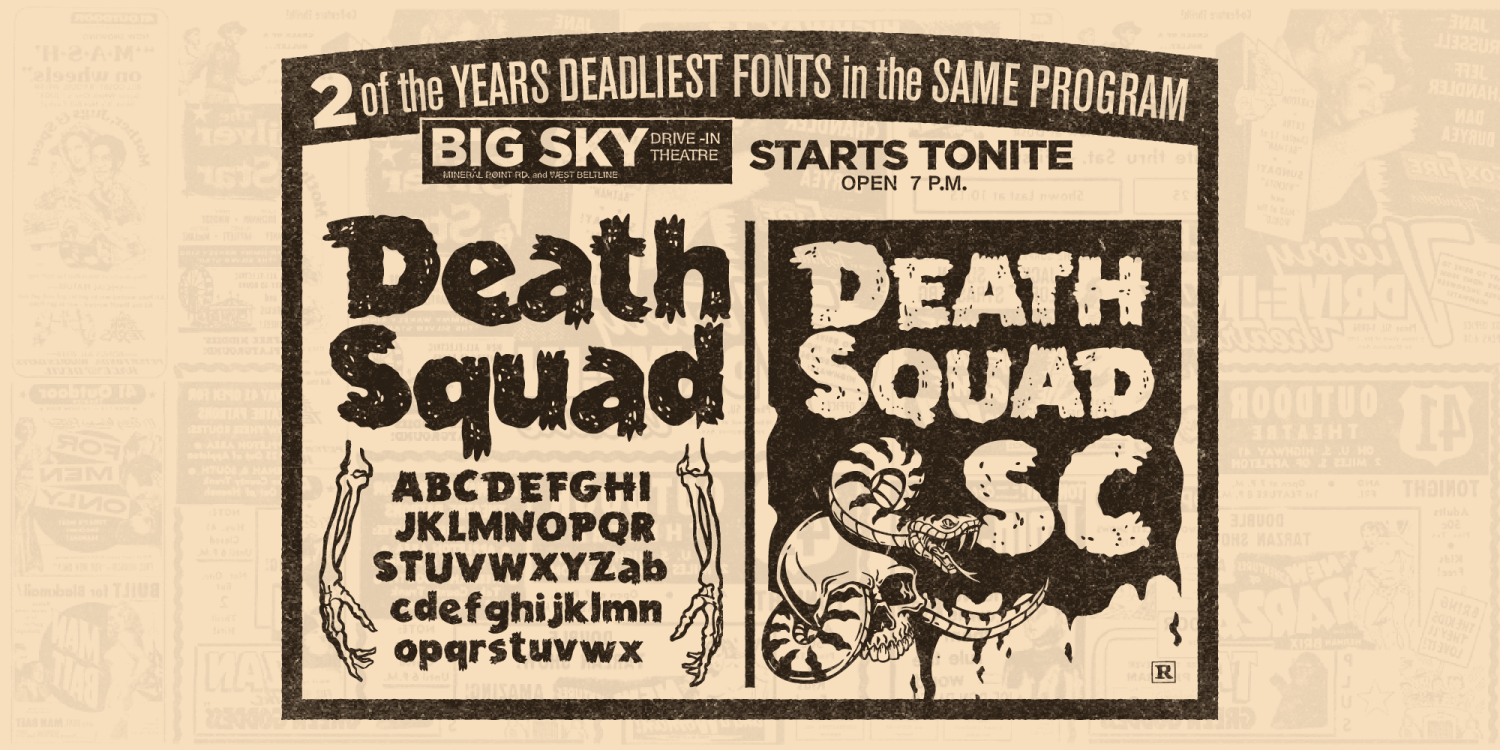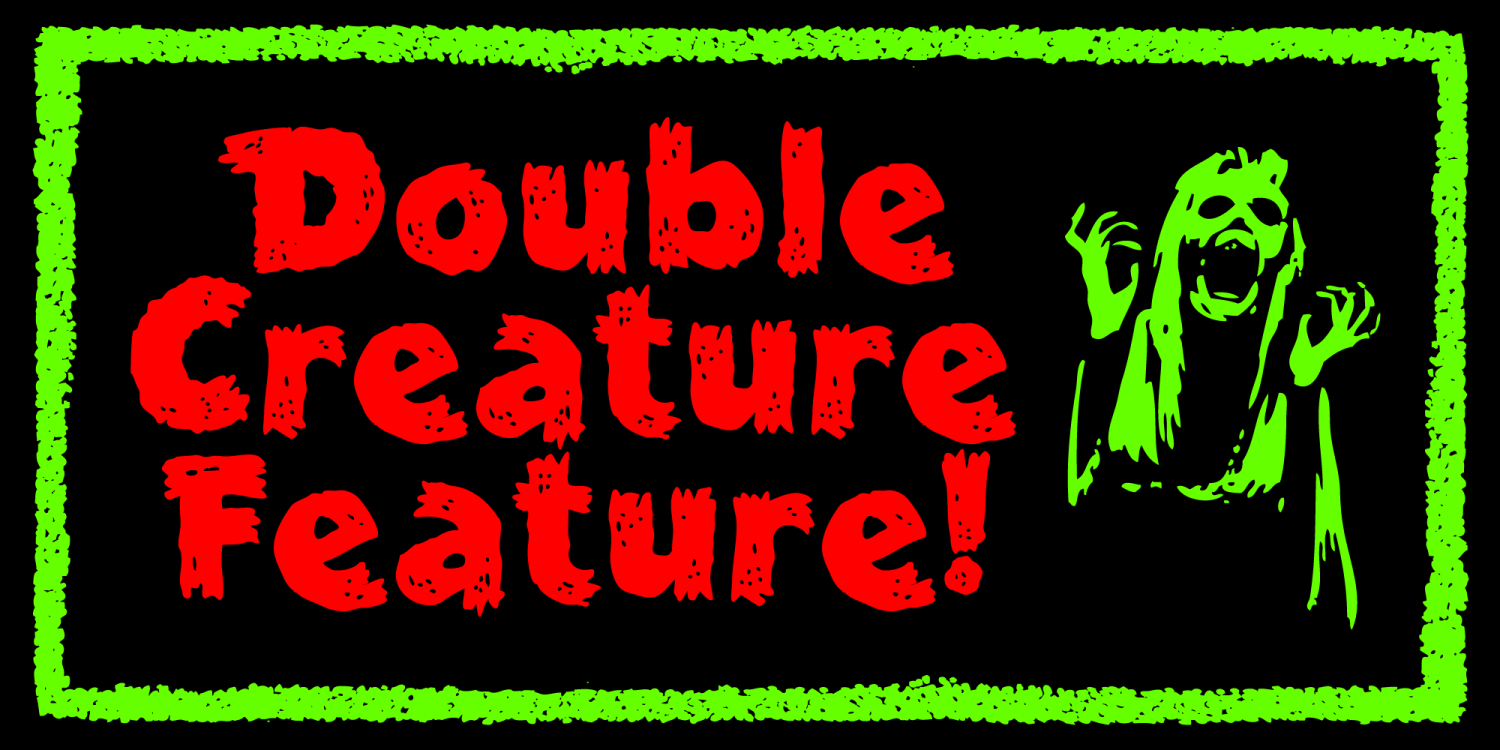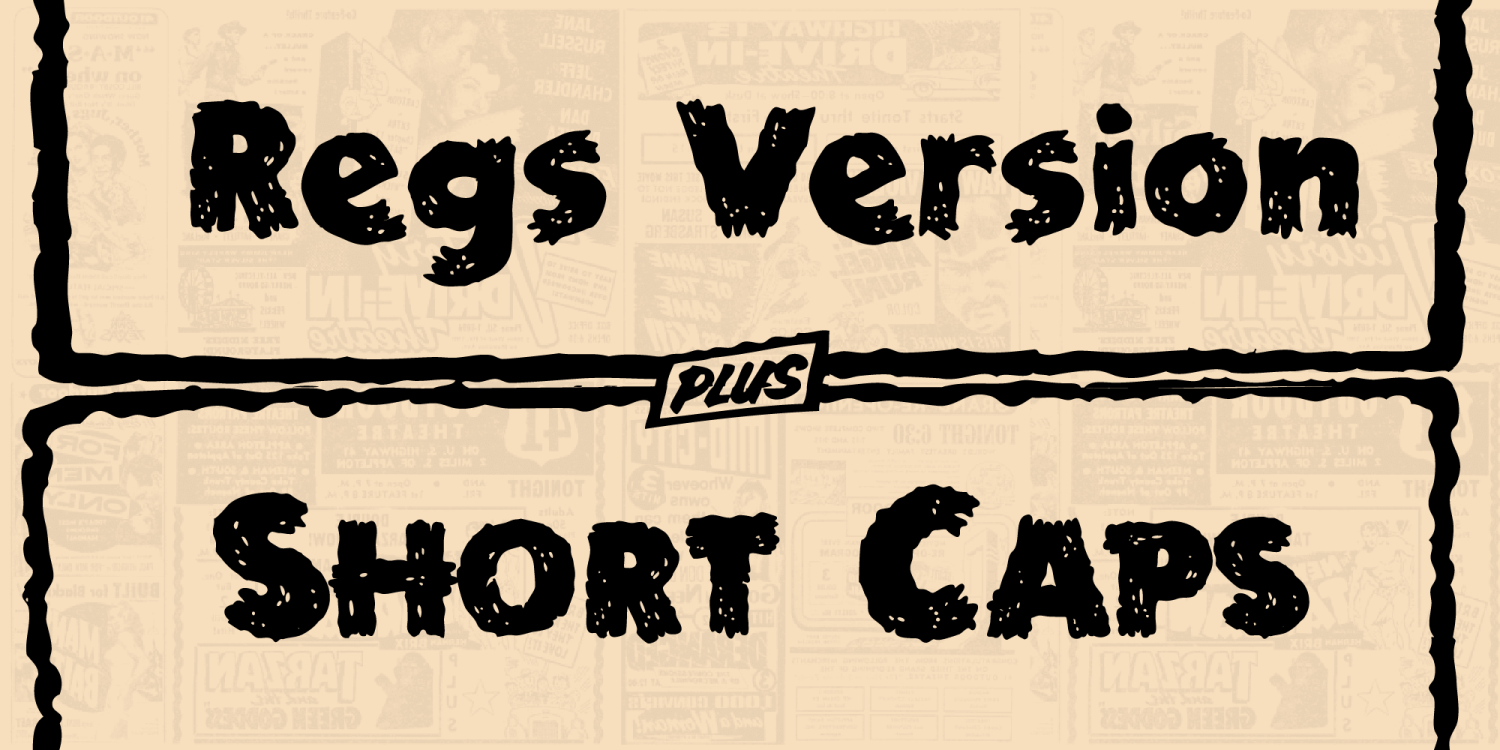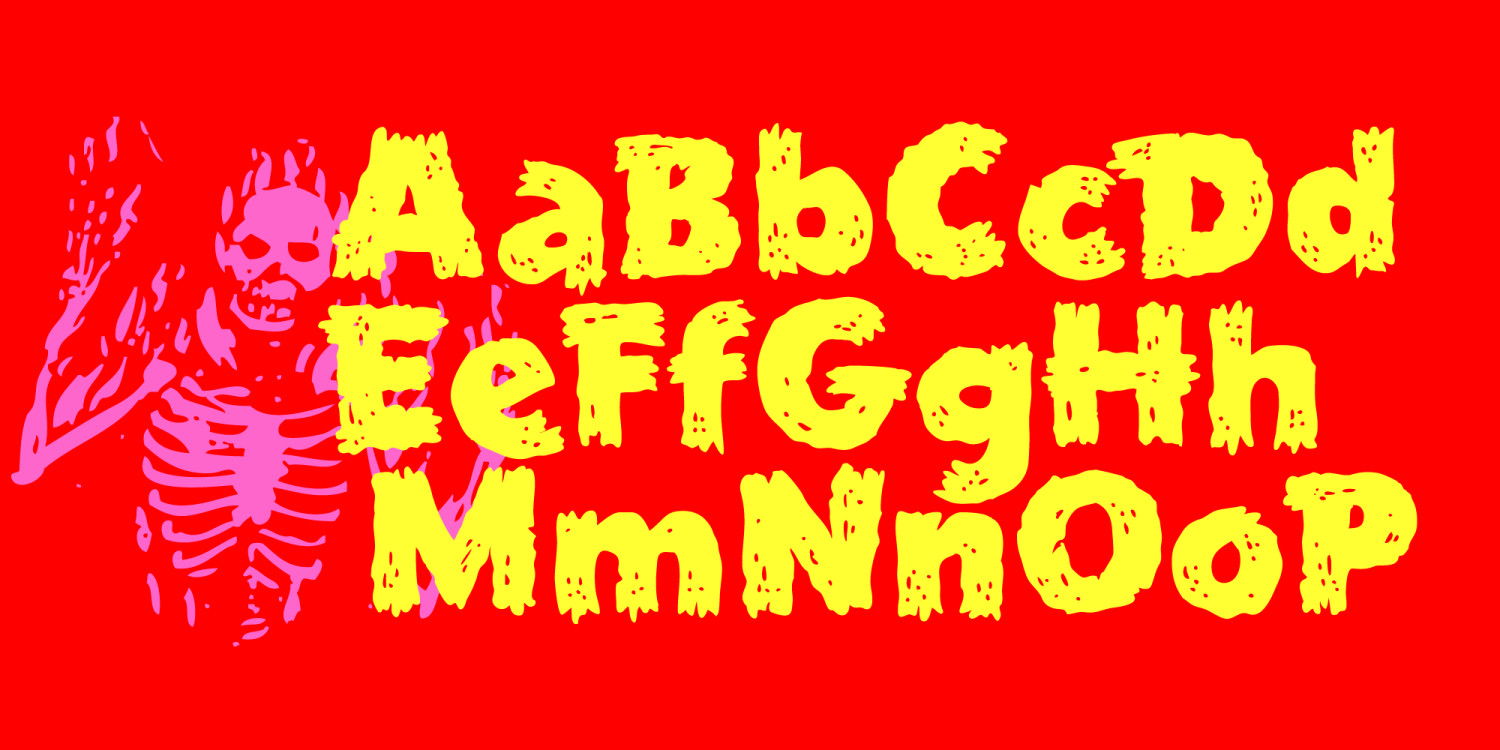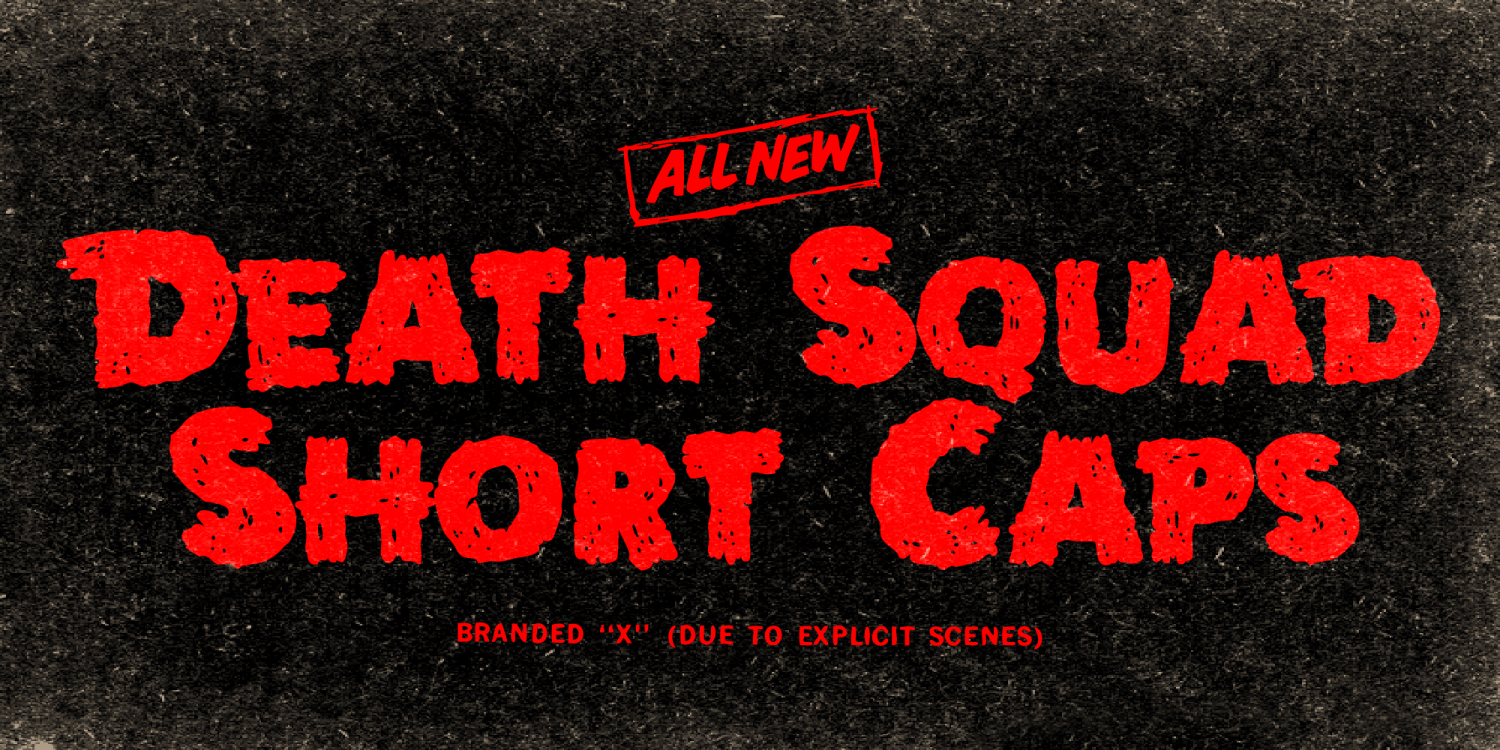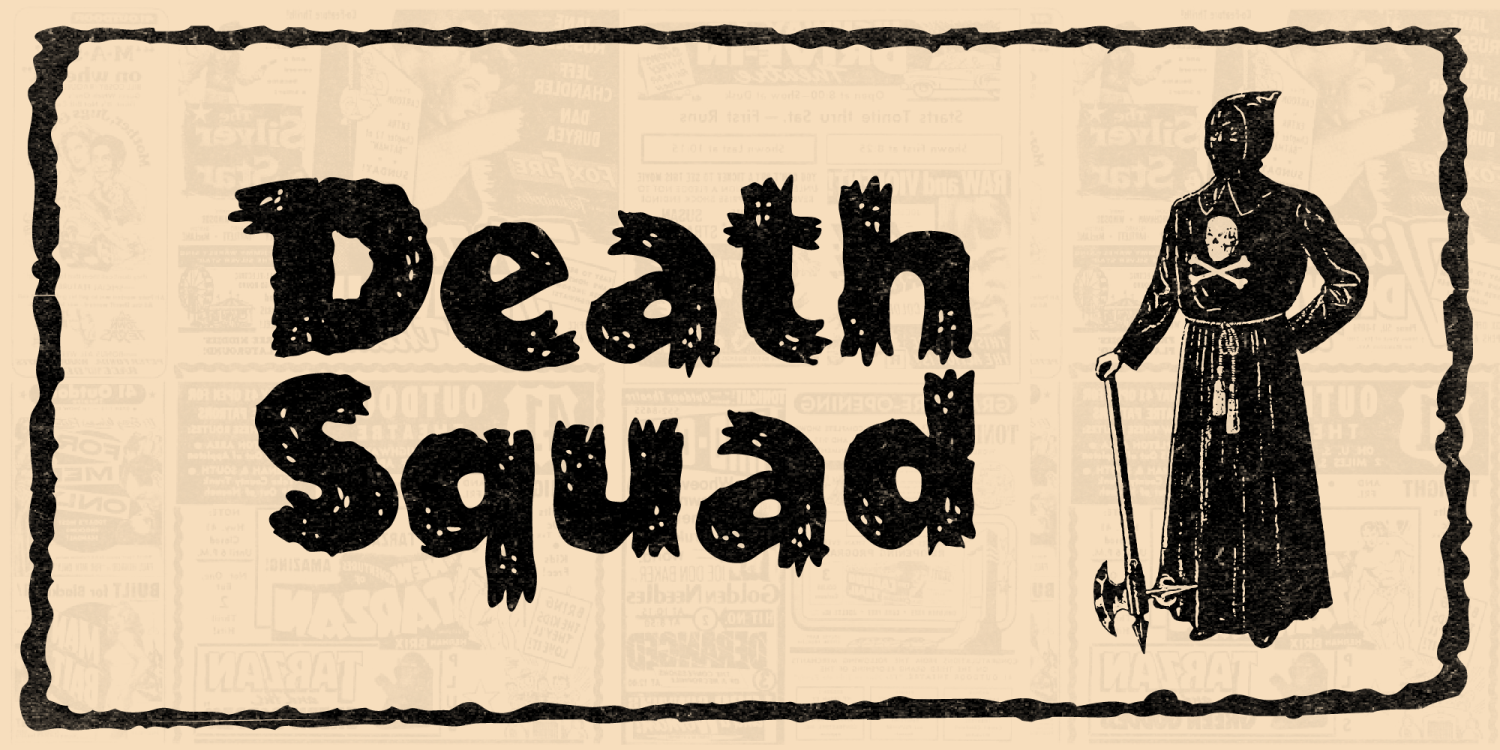
Deadlier than Dracula! Wilder than the Werewolf! More frightening than Frankenstein! It's Death Squad, your screen's newest double feature typeface. Bold and hewn rough, this font is not recommended for those faint of heart. If you are trying to get a big bold statement across, and you are prepared to plow through all other messages to get yours to the top of the queue, this is your baby right here.